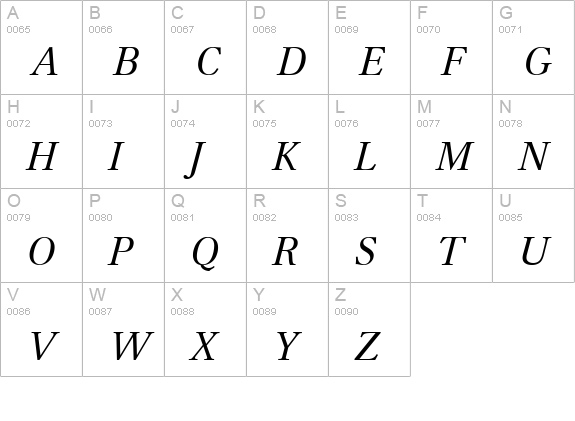
Cremona Expert Italic Osf Font Details
Cremona Expert Italic Osf is a distinctive, italic variant in the Cremona typeface family \xE2\x80\x94 well suited to design and typography projects.
Cremona Expert Italic Osf font is a sophisticated and elegant typeface designed for those seeking a touch of refinement in their design projects. The italic style adds a sense of flair and dynamism, making it perfect for conveying a sense of sophistication and creativity. The font features delicate strokes and graceful curves that exude a sense of timeless beauty. This font is not only visually appealing but also highly functional, making it suitable for a wide range of design applications, from branding to editorial design. Its open type features, including old-style figures, make it versatile and easy to use in various contexts. Best of all, Cremona Expert Italic Osf font is freely available to download at FontsMarket.com. So, whether you are a designer looking to add a touch of elegance to your projects or a typographer in search of a new favorite font, this typeface is sure to impress with its beauty and versatility.